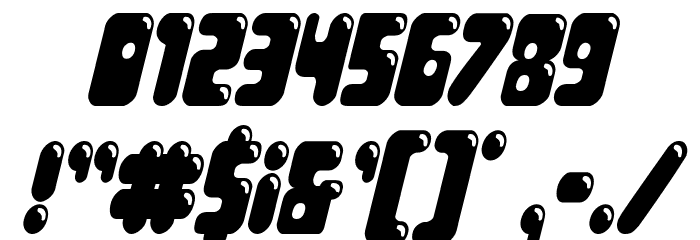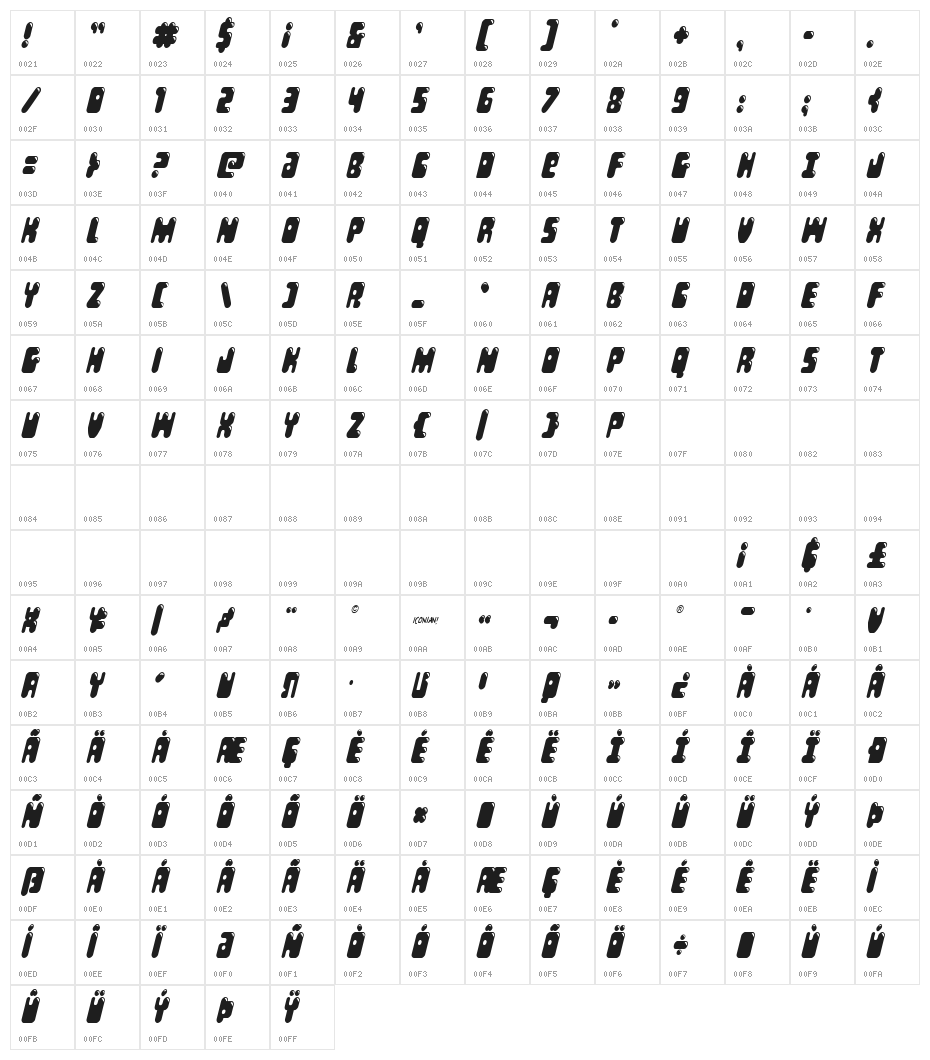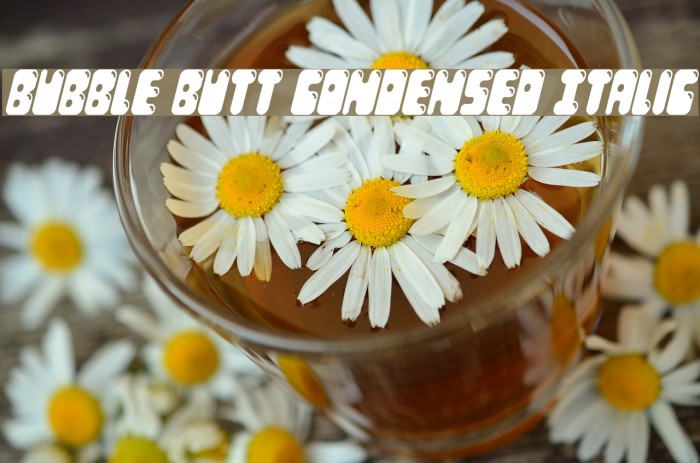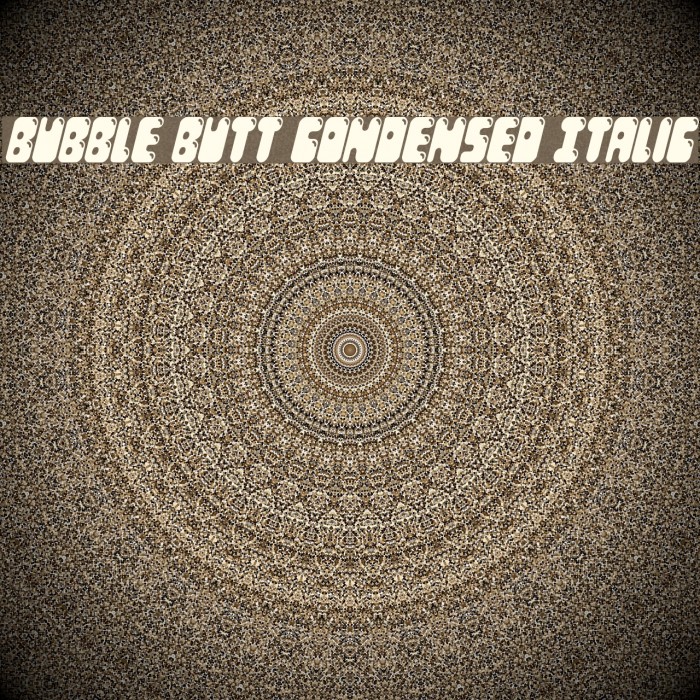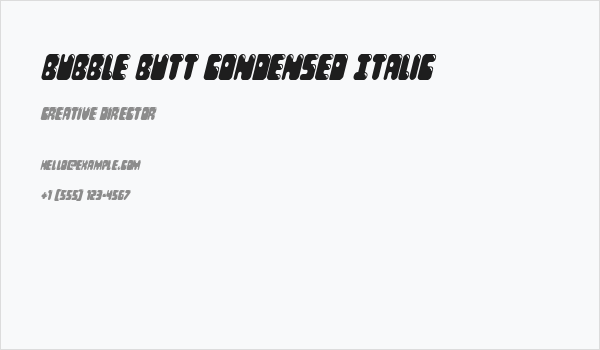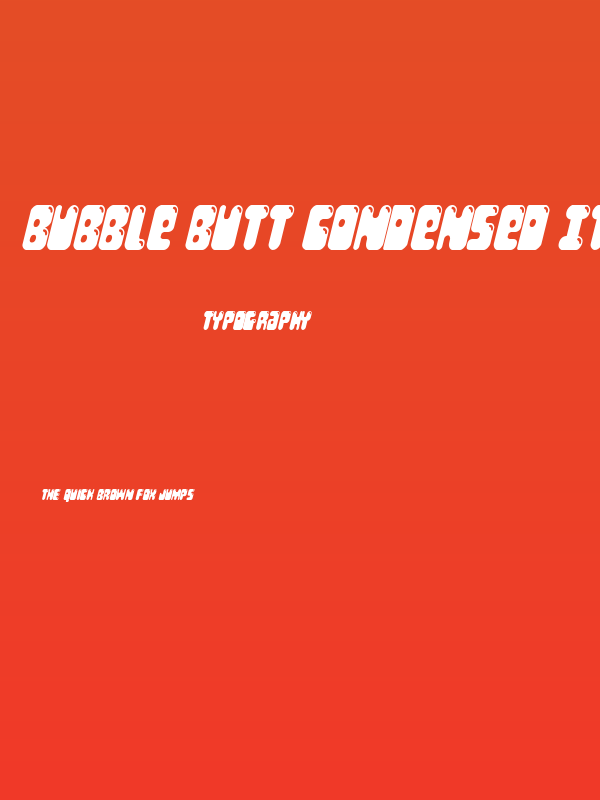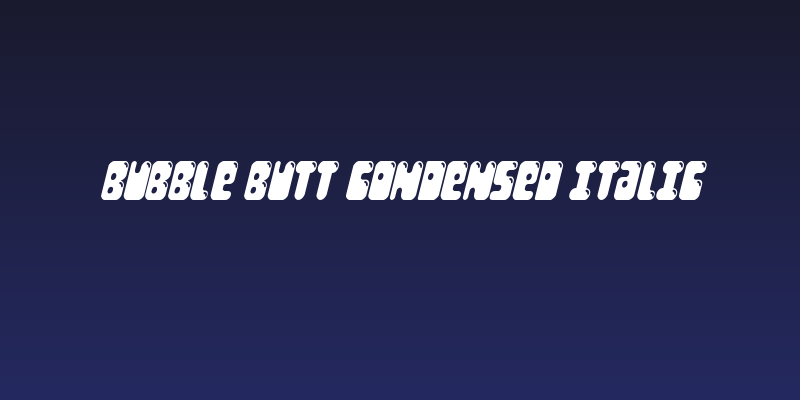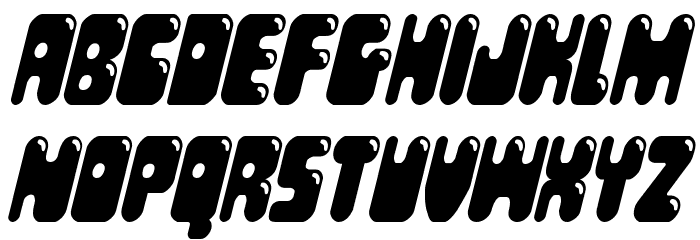
Bubble Butt Condensed Italic Font
Bubble Butt Condensed Italic Description
This playful and bold typeface features a unique bubble-like design with condensed letterforms. The characters are italicized, giving them a dynamic and forward-leaning appearance. Each letter is crafted with rounded edges and a thick, consistent stroke, creating a sense of fun and whimsy. The font includes both uppercase and lowercase letters, numbers, and a variety of special characters, making it versatile for different uses. Its distinctive style is eye-catching and memorable, perfect for projects that require a touch of creativity and boldness.
| Proposed Projects | Ideal for children's books, playful branding, event posters, and creative social media graphics. |